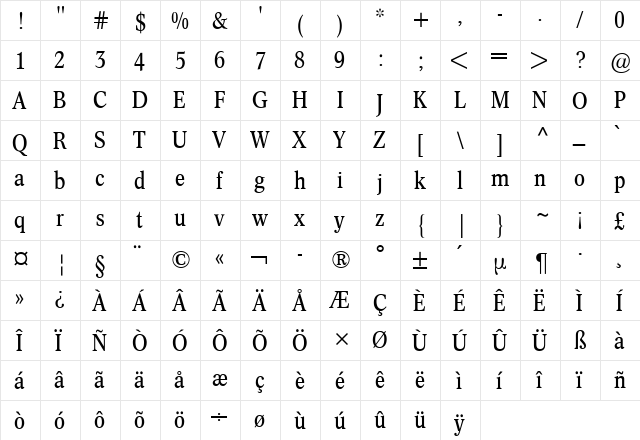
Concorde Nova BQ Regular Font Preview
Concorde Nova BQ Regular
Design Context for Concorde Nova BQ Typeface
Concorde Nova BQ takes a measured approach to typography — its balanced proportions and neutral character make it a reliable workhorse for both digital and print work.